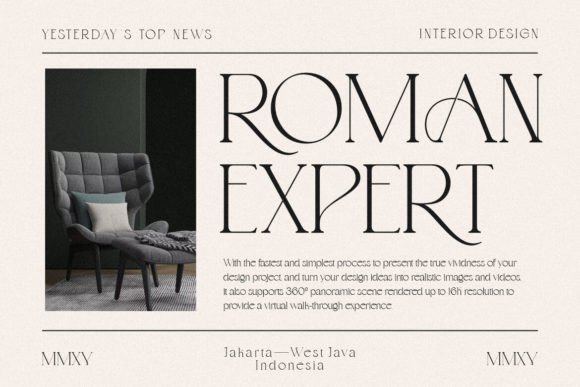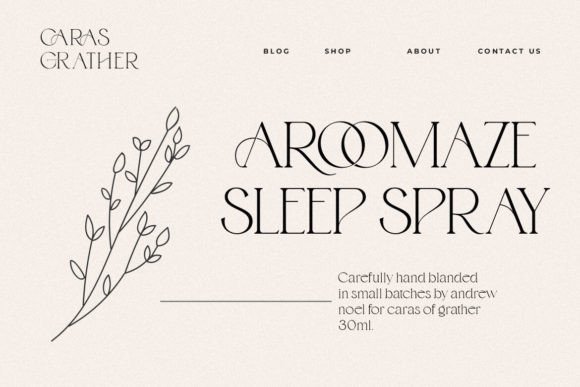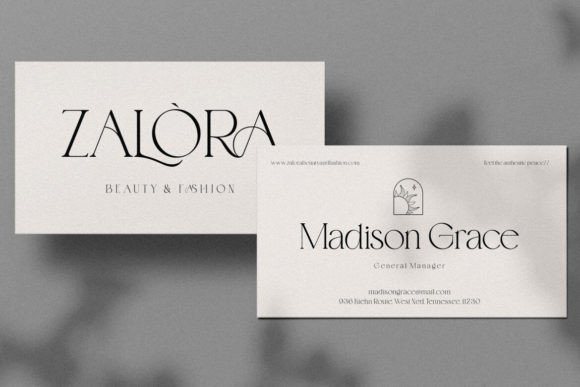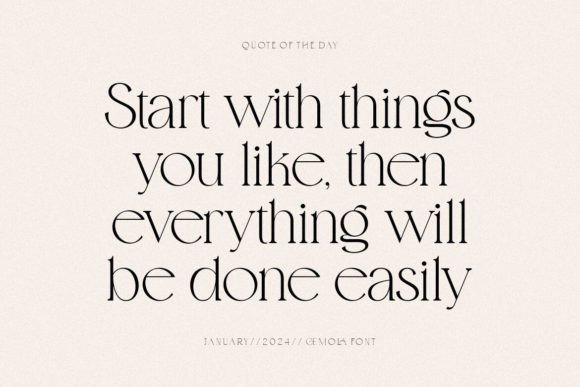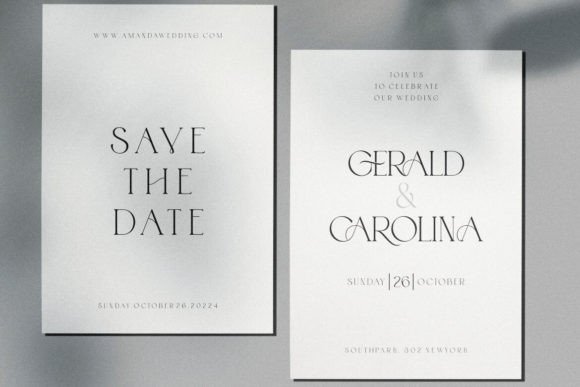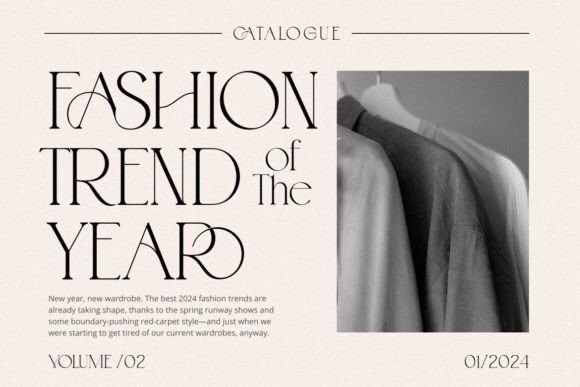
Introducing Gemola Font: The Elegant Display Serif for Modern Creatives
As designers, we’ve all been there – stuck on a project, searching for that perfect font to bring our vision to life. I recall working on a romantic wedding invitation project, determined to find a font that exuded elegance and sophistication. That’s when I discovered Gemola Font, a stunning display serif font that instantly captured my heart. In this article, I’ll share my experience with Gemola Font, its features, and how to make the most of it in your designs.
A Personal Review: What I Love About Gemola Font
Gemola Font is more than just a beautiful font – it’s a design powerhouse. Here’s what I love about it:
- ✨ Elegant and modern look that’s perfect for multipurpose projects
- ✅ Unique yet luxurious style that adds a touch of sophistication to any design
- 💕 Romantic vibes that make it ideal for wedding projects, invitations, and love-themed designs
- 🎨 Highly versatile and adaptable to various design styles and formats
While Gemola Font is an excellent choice, there are a few things to keep in mind:
- 🤔 Limited availability of certain characters and glyphs, which may require additional design workarounds
- ⚠️ May not be the best fit for very small font sizes or body text, as it’s designed for display purposes
- Experiment with OpenType features, such as ligatures and stylistic alternates, to add visual interest
The Story Behind Gemola Font
Gemola Font was inspired by the concept of romantic vibes and a desire to create a unique yet luxurious style. As a designer, I wanted to craft a font that would evoke feelings of elegance and sophistication, while also being versatile and adaptable to various design projects.
| Font Name | Gemola Font |
| Author | HansCo |
Q: What is Gemola Font best suited for?
Gemola Font is perfect for multipurpose projects, including logos, crafts, posters, books, branding, quotes, print templates, packaging, invitations, product labels, advertising, wedding projects, and more.
Q: Does Gemola Font support OpenType features?
Yes, Gemola Font supports OpenType features, including ligatures, stylistic alternates, and glyphs. You can access these features in compatible design software, such as Adobe Creative Cloud apps.
Q: Can I use Gemola Font for body text?
While Gemola Font is designed for display purposes, it can be used for body text in certain contexts. However, it’s recommended to use a font size of 14px or larger to ensure optimal readability.